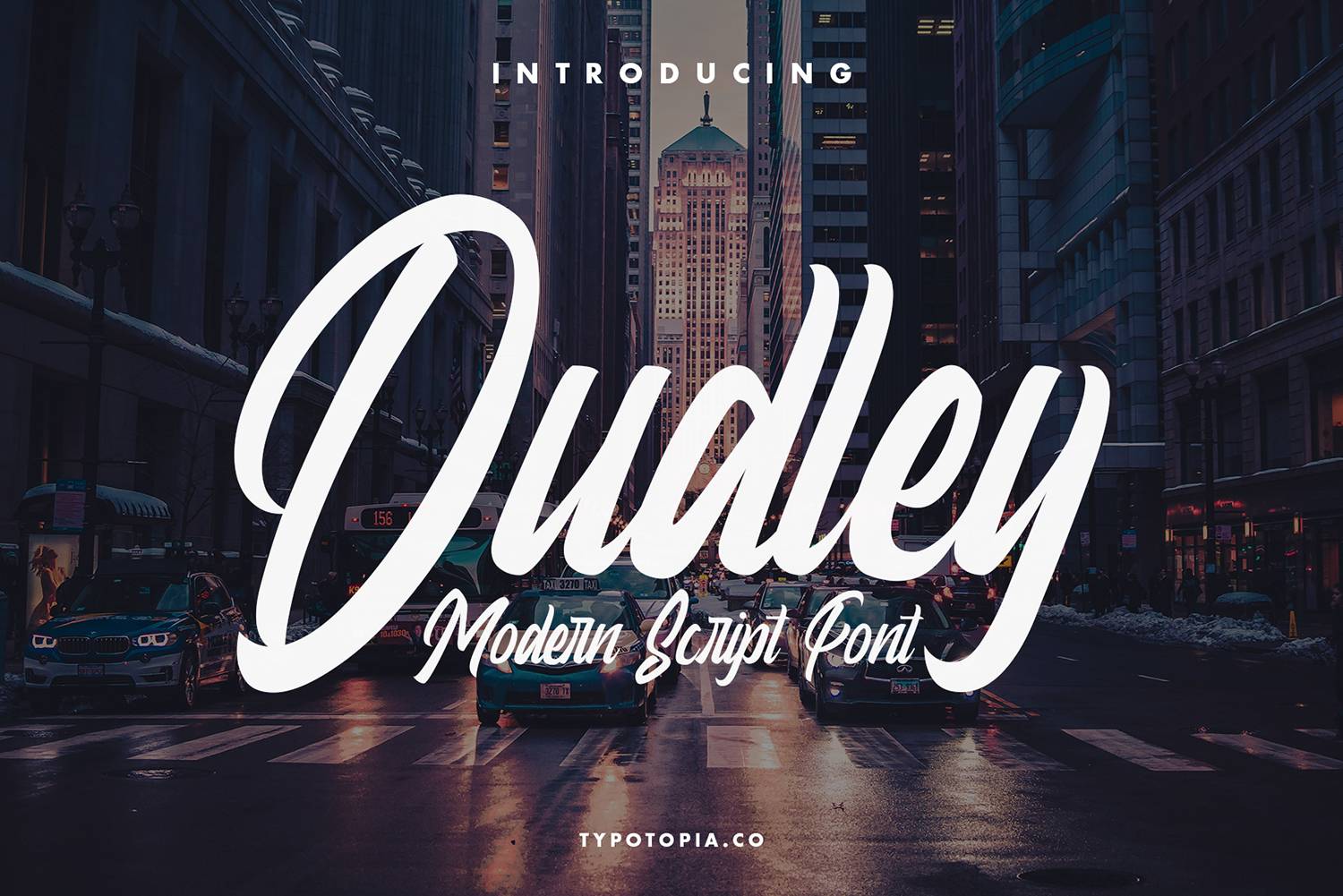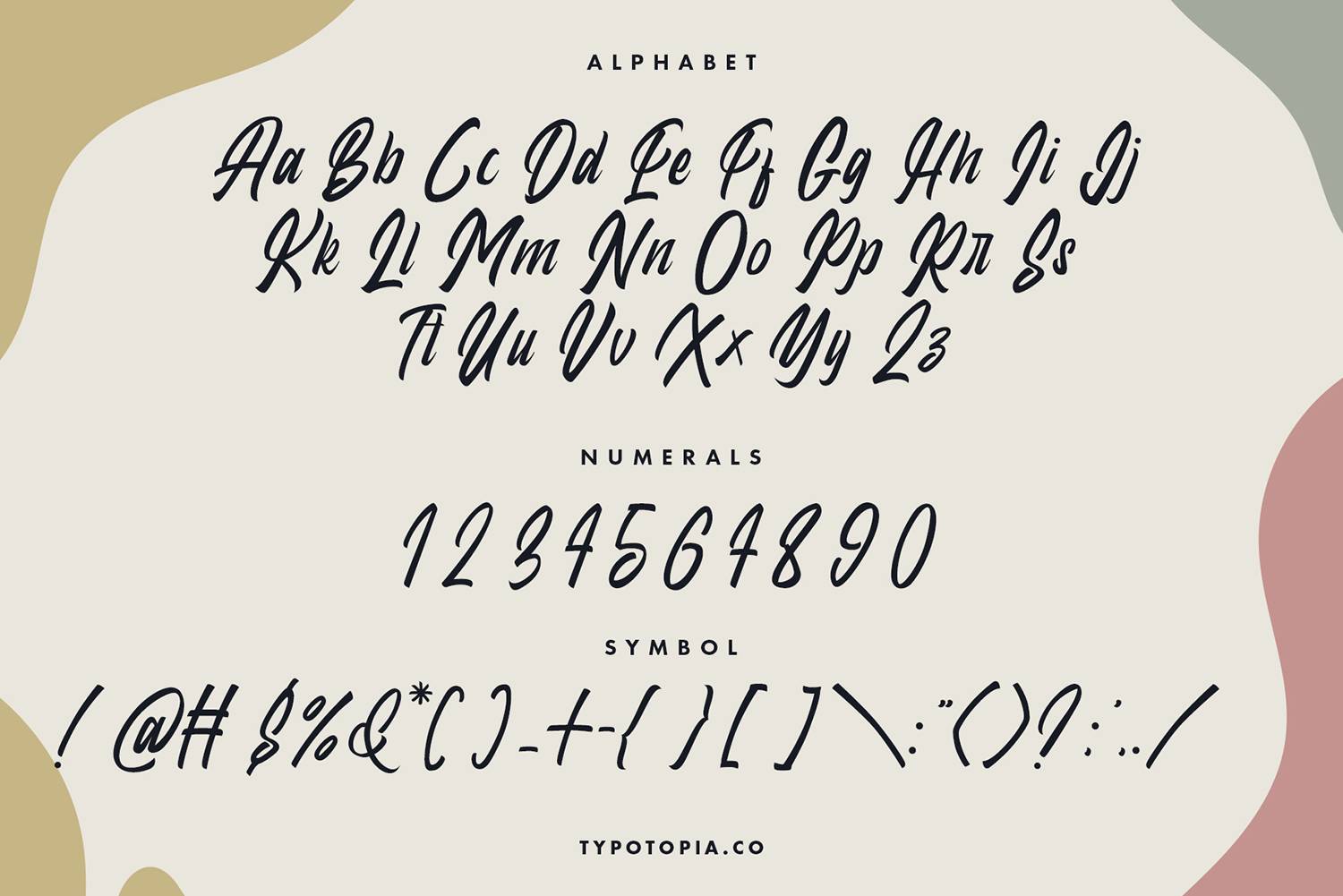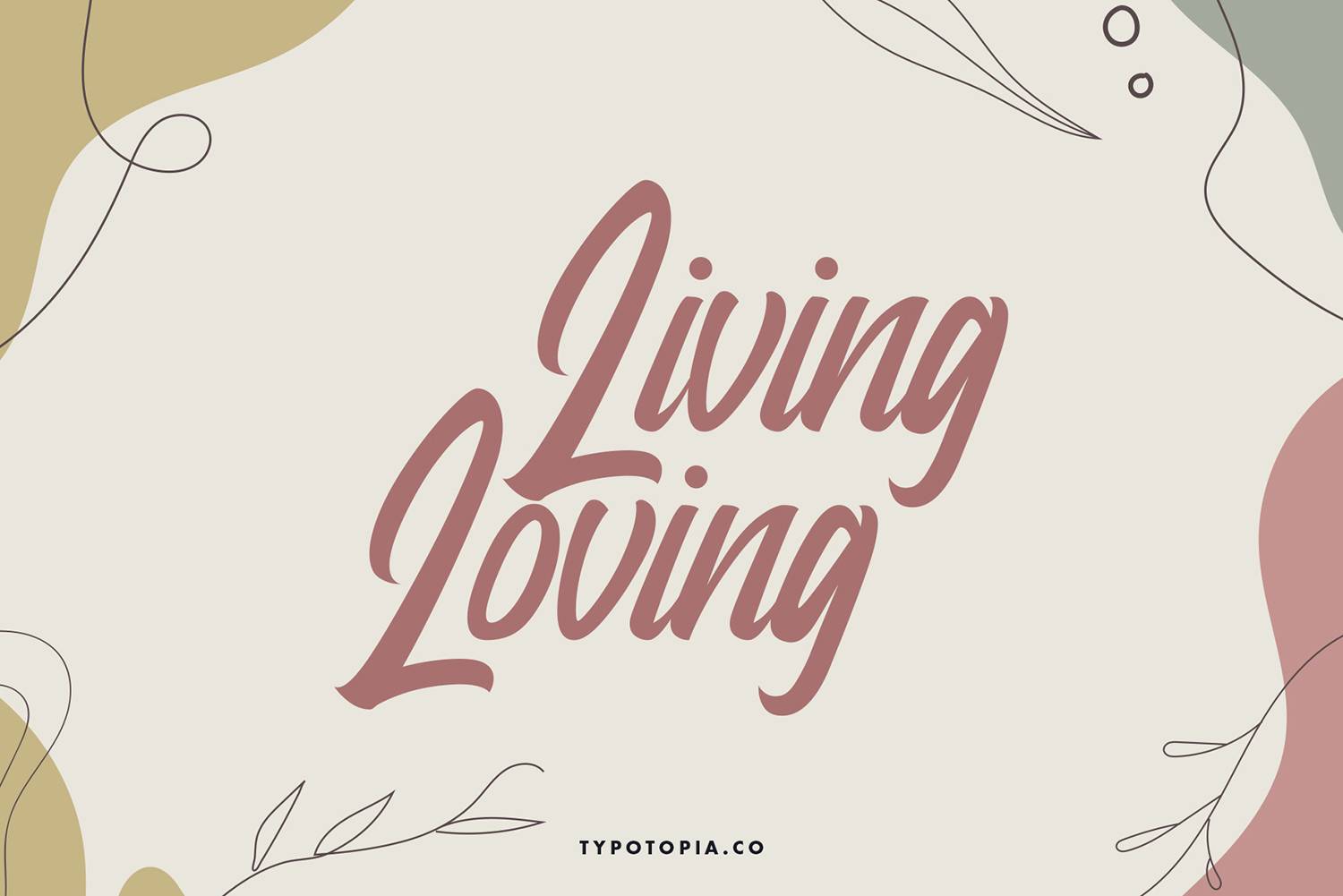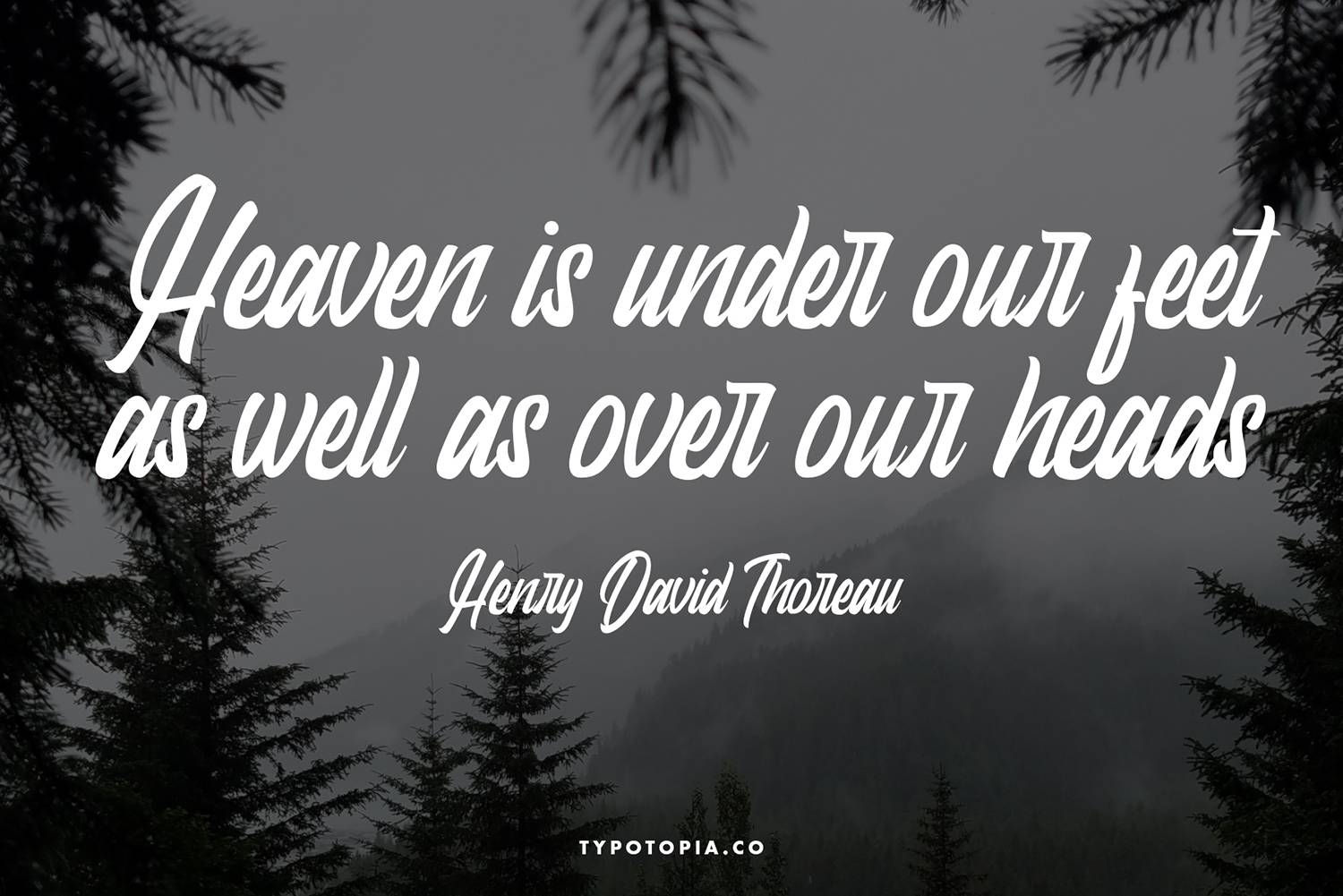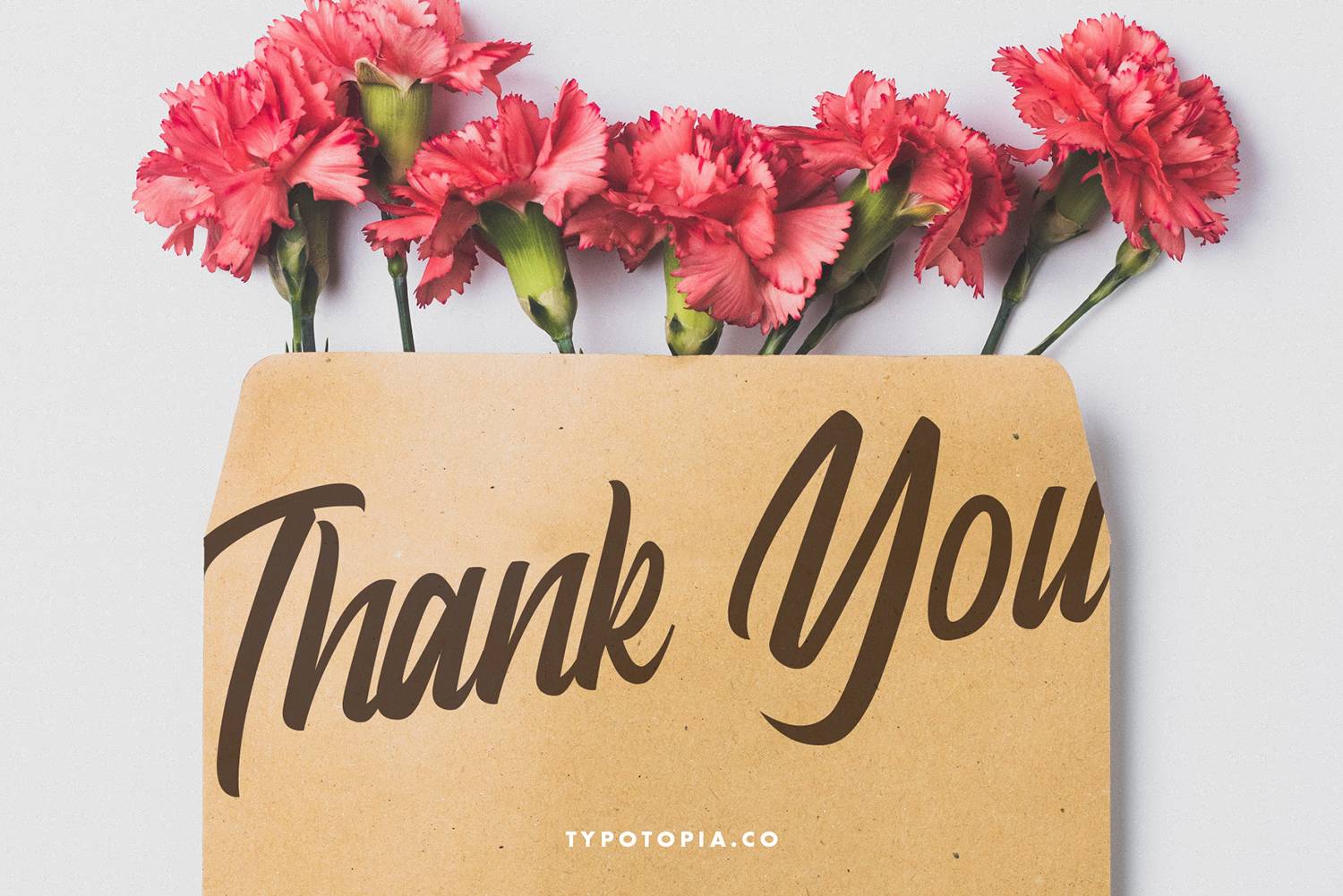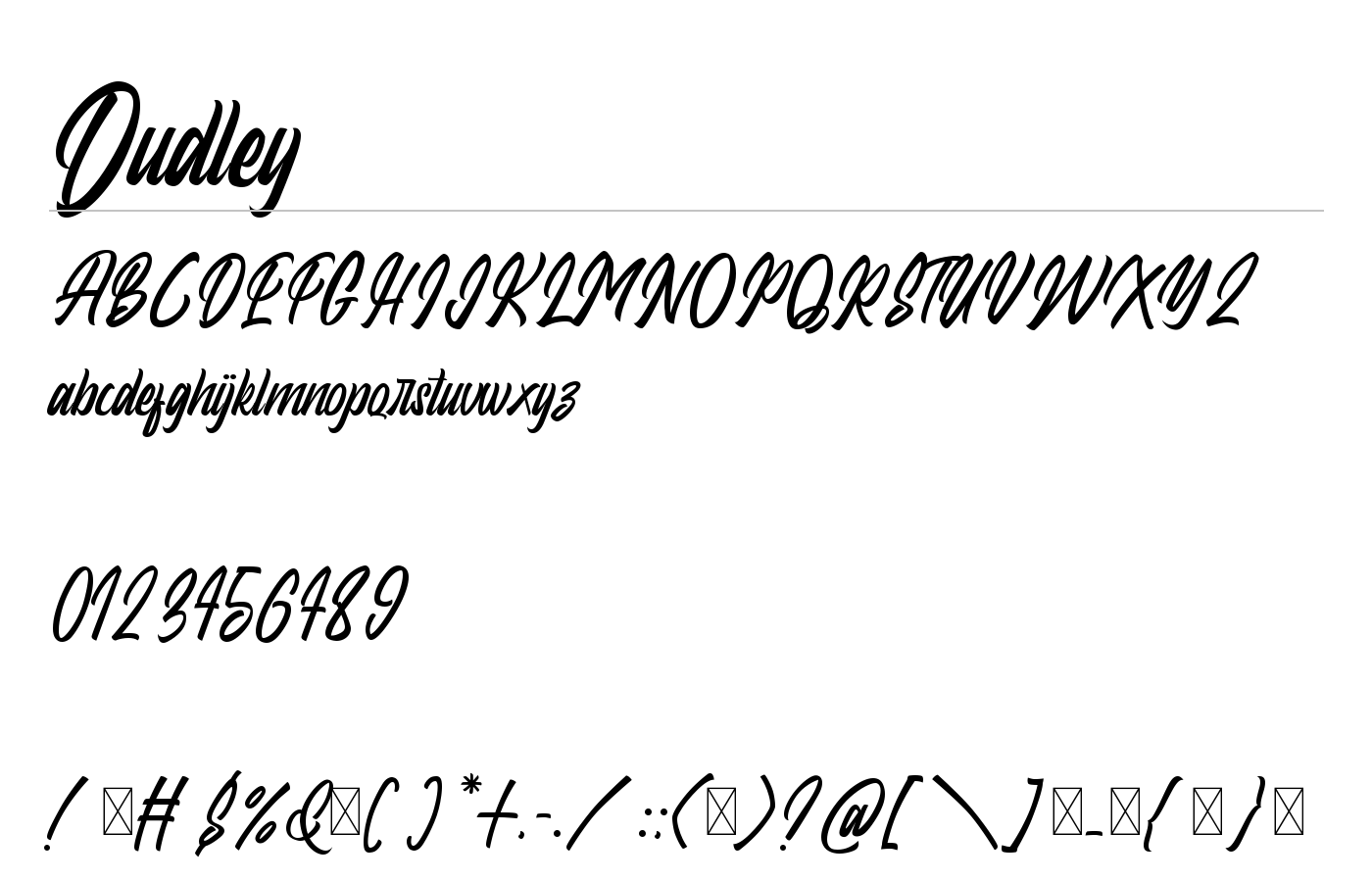
Dudley is a stylish script font with a smooth, flowing design that combines elegance and a casual feel. Its slender, slightly condensed letterforms and consistent stroke weight give it a modern, approachable personality, making it perfect for branding, invitations, and headlines where a touch of sophistication and warmth is desired. This font works well in contexts that need a handwritten charm without sacrificing readability or professionalism.
Dudley Font
About Dudley Font